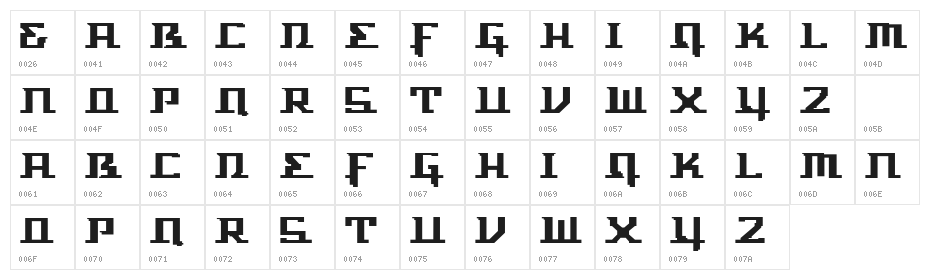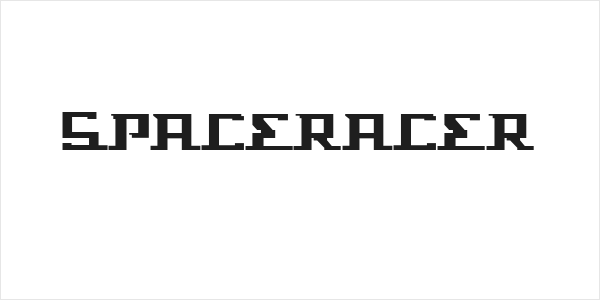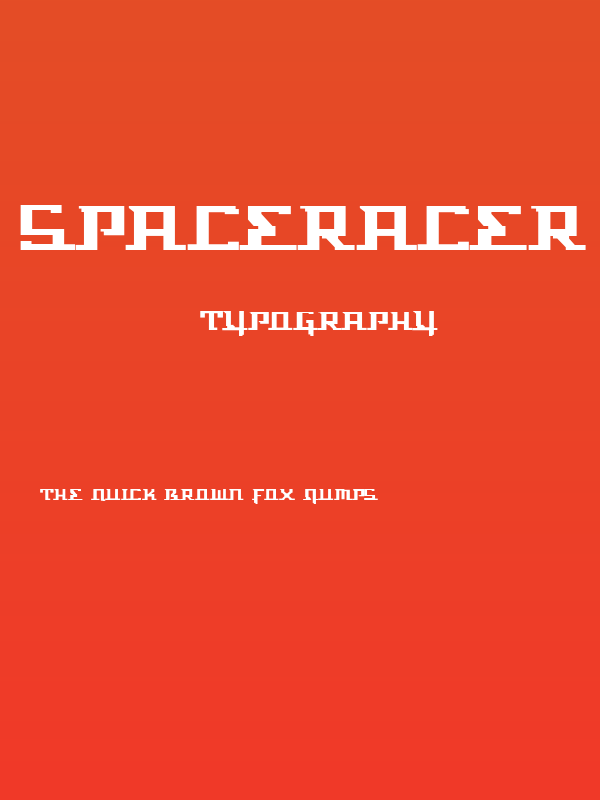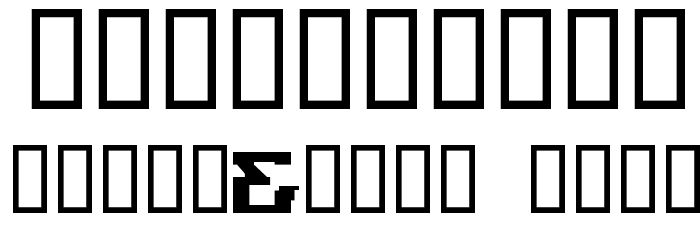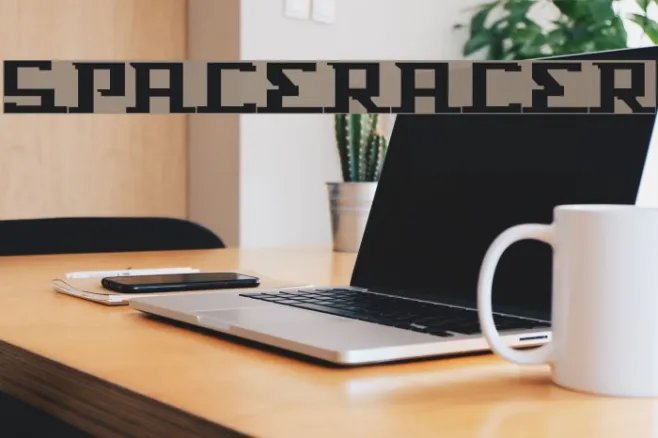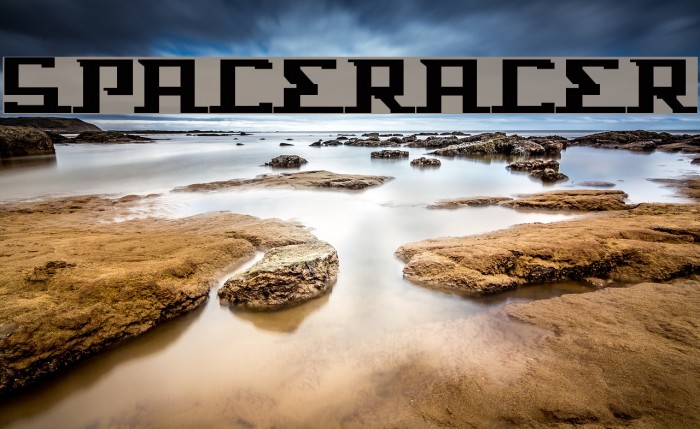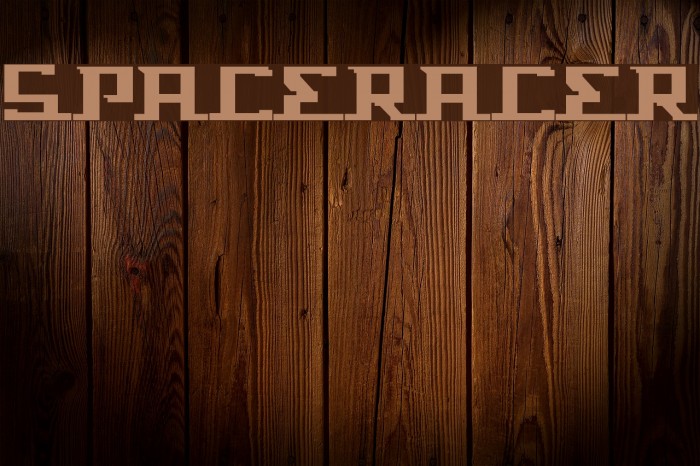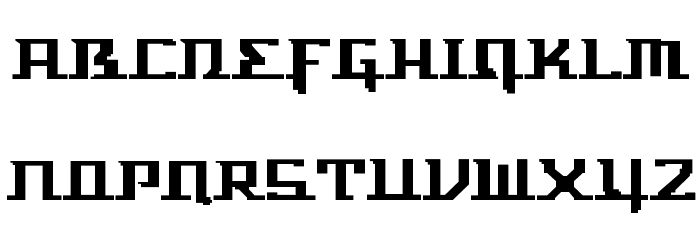
Spaceracer Font
Spaceracer Description
This font features a futuristic and angular design, characterized by sharp edges and a blocky structure. The uppercase and lowercase letters share a consistent geometric style, with each character appearing as if constructed from a series of straight lines and right angles. The numerals and special characters maintain this aesthetic, contributing to a cohesive and modern look. The font's distinct appearance makes it ideal for projects that require a bold and technological feel, such as video game titles or sci-fi themed designs. Its unique style ensures that it stands out, making it suitable for headlines and other prominent text uses.
| Proposed Projects | Ideal for video game titles, sci-fi themed designs, and technology-related branding. |